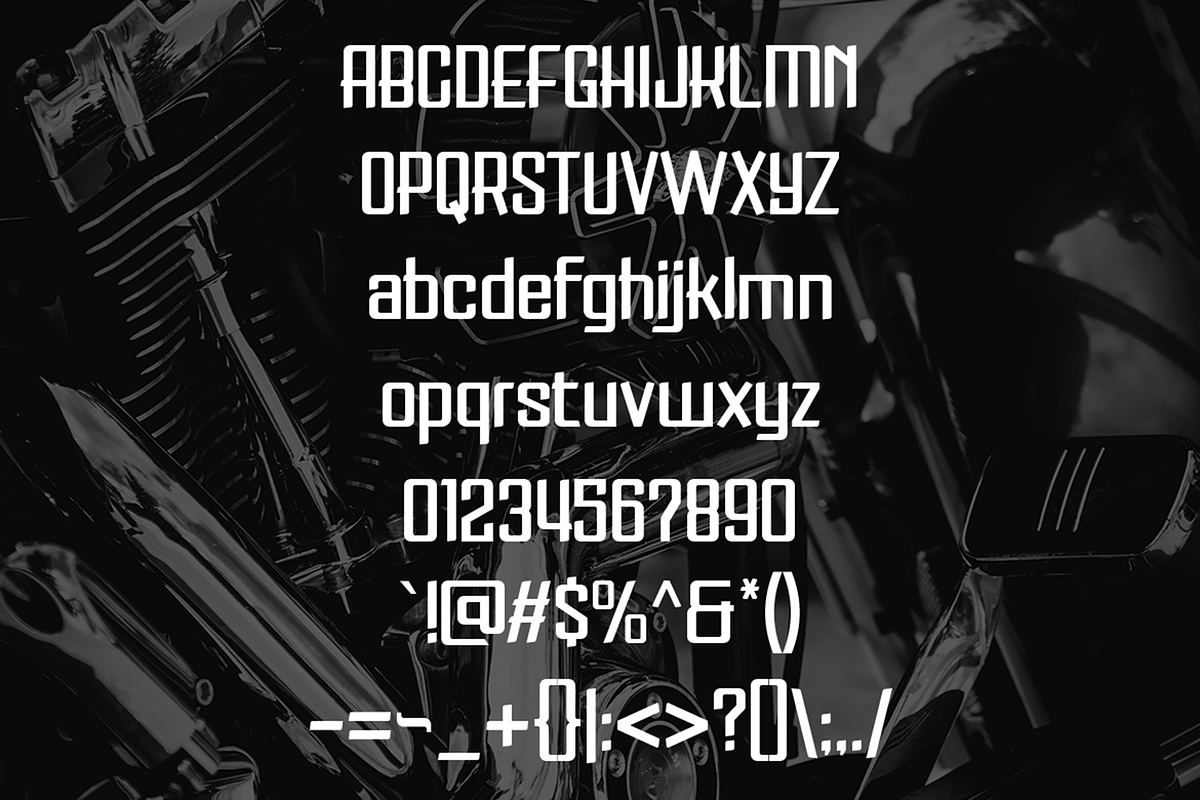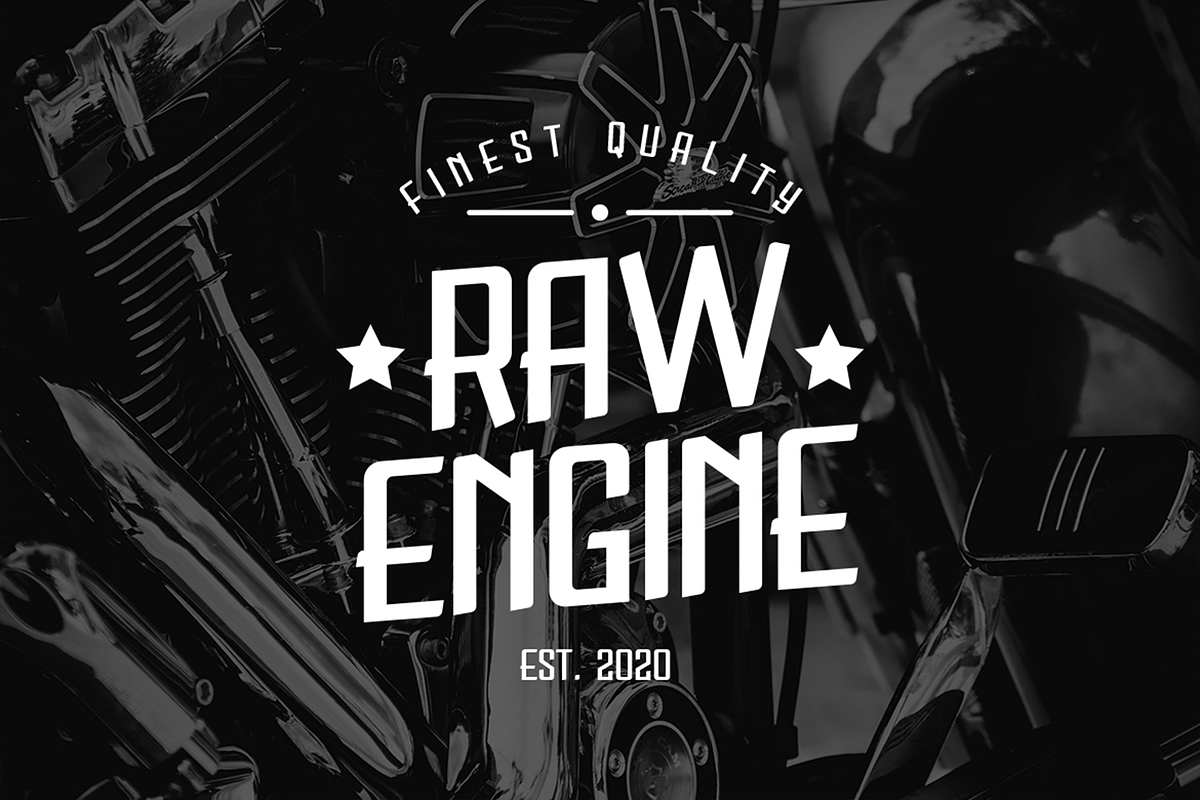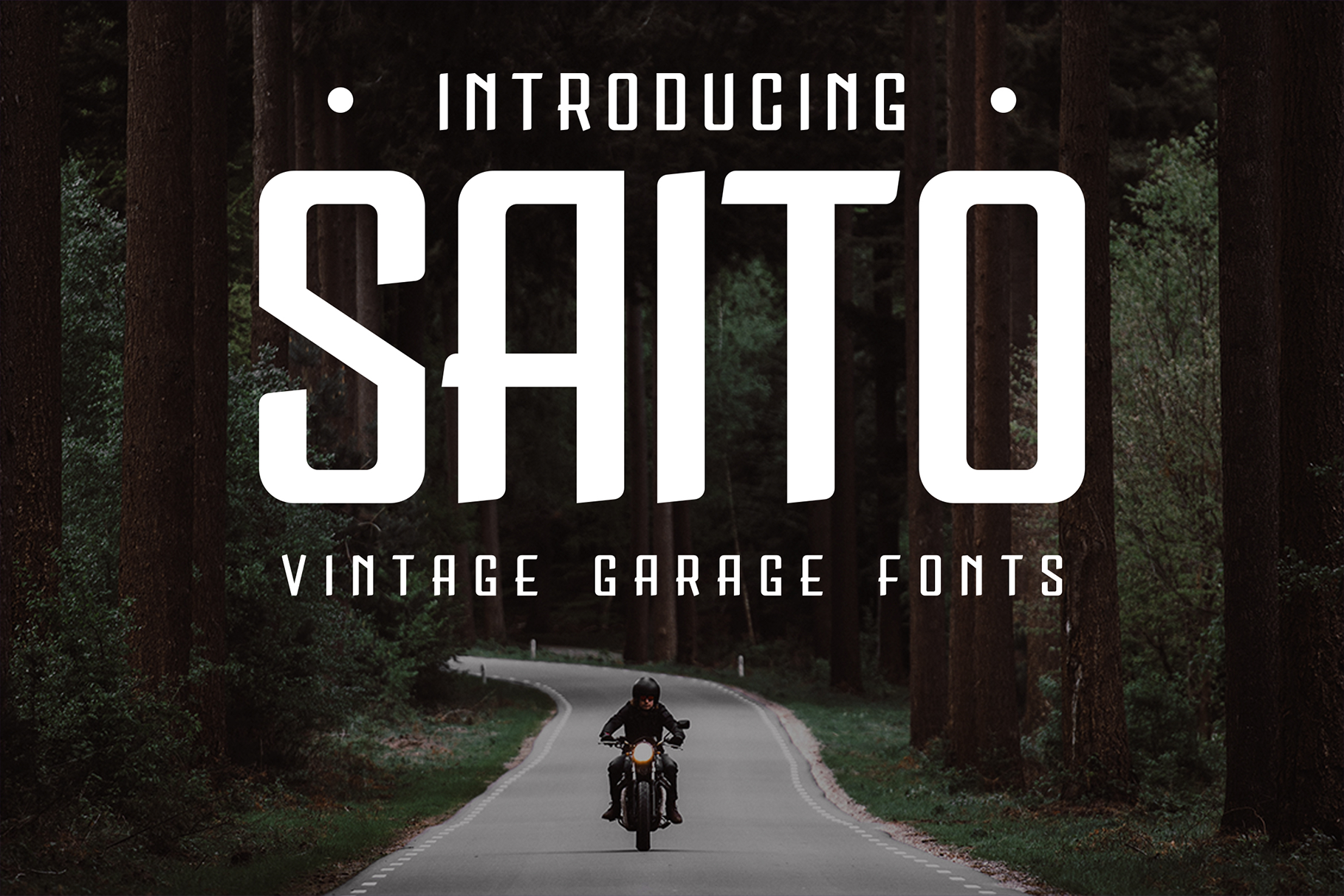
Saito – Vintage Garage Fonts
A manly vibes with strong characters in every letter, Saito is defined as a masculine font for your design needs. As easy as starting the engine for your vintage motorcycle branding tools, and of course other concepts that need a strong masculine touch, Saito is an easy way to go out.